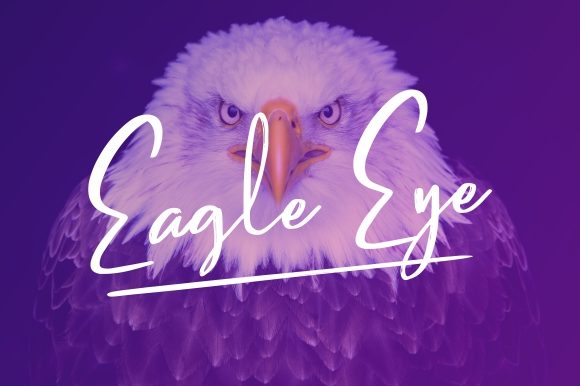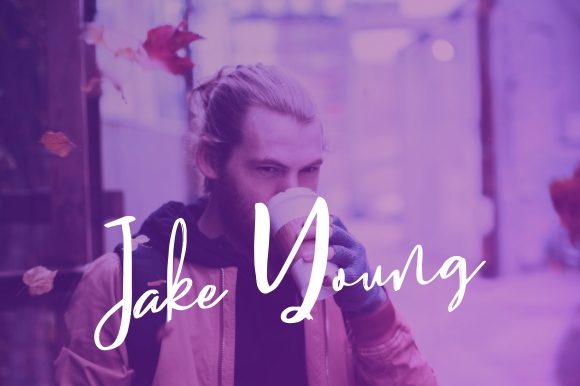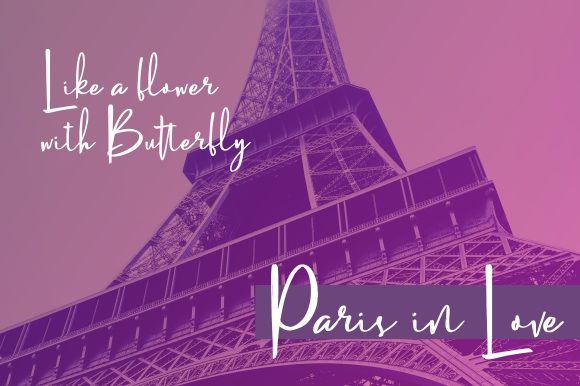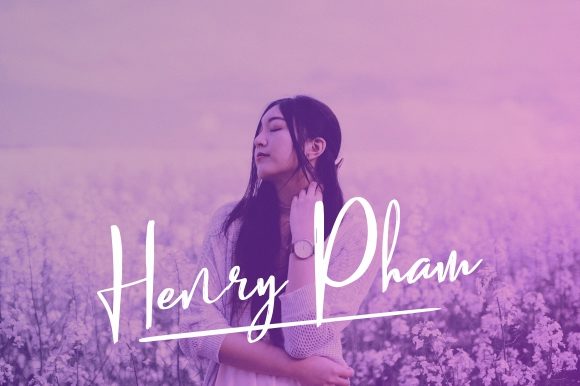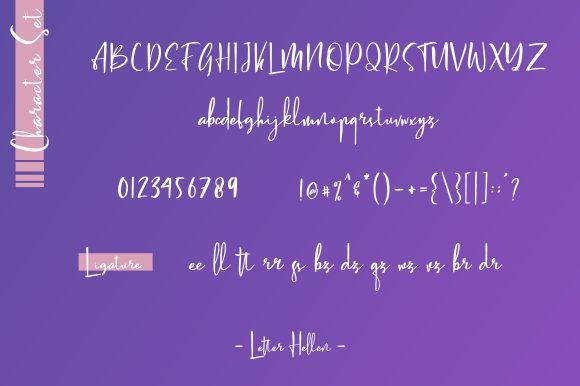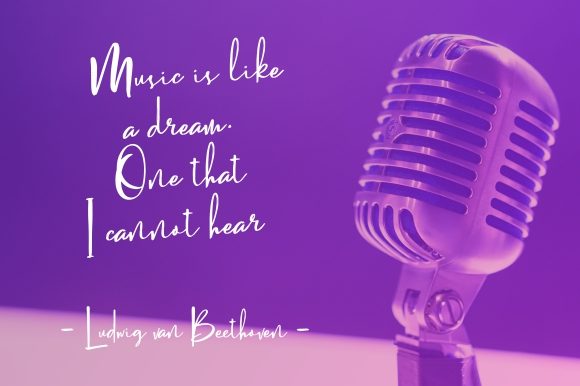
Introduction to Letter Hellen Font
Do you remember the moment when you finally found the perfect font for your creative project? For many designers, it’s a moment of pure joy, and it can make all the difference in bringing their vision to life. That’s exactly what happened to us when we stumbled upon the stunning Letter Hellen Font. With its elegant lines and dry brush texture, this font has the power to give your designs a feminine and natural feel that’s simply irresistible.
As a valuable design resource, the Letter Hellen Font is perfect for a wide range of applications, from logos and invitations to social media posts and product packaging. Its versatility, combined with its high-quality design, makes it a must-have for any designer looking to elevate their creative work. And the best part? You can download it for free, making it an accessible addition to your design arsenal.
Whether you’re working on a special event, a product launch, or simply a personal project, the Letter Hellen Font is sure to add a touch of sophistication and elegance to your designs. With its transparent background and beautiful texture, it’s the perfect choice for anyone looking to create a truly unique and eye-catching visual identity.
Key Features of Letter Hellen Font
- High-quality design resource ideal for creative projects, such as graphic design and digital art.
- Supports transparent background, allowing for seamless integration into various design elements.
- Designed with precision, featuring a resolution of 300 DPI for crisp and clear display.
- Unique characteristics include elegant lines, modern style, and a minimalist aesthetic, making it perfect for contemporary design projects.
Honest Review: Letter Hellen Font
As a designer, I’m always on the lookout for high-quality fonts that can elevate my creative projects. The Letter Hellen Font caught my attention with its elegant and sophisticated design. I decided to give it a try and see if it lives up to its promise.
- High-quality design: The Letter Hellen Font features beautiful, intricate details that make it perfect for formal and professional projects.
- Transparent background: This font has a transparent background, making it easy to place over any background image or color.
- Limited versatility: While the Letter Hellen Font is perfect for formal projects, it may not be suitable for more casual or playful designs.
- No bold weight: The font only comes in one weight, which may limit its use in headings or titles.
Overall, I’m impressed with the Letter Hellen Font. Its high-quality design and transparent background make it a valuable addition to any designer’s toolkit. While it may have some limitations, it’s a great resource for designers working on formal or professional projects.